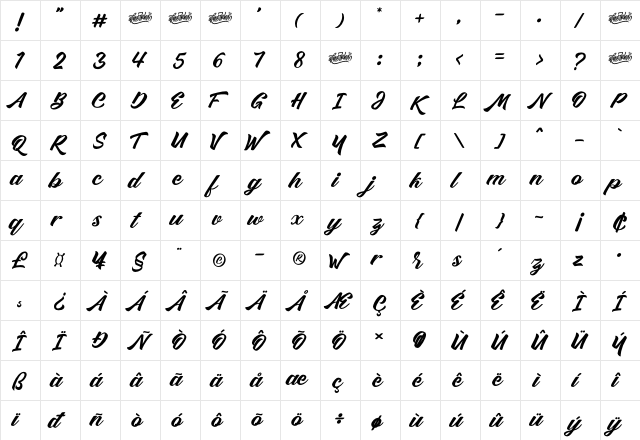
Mentality Regular
Design Context for Mentality Typeface
Mentality is a composed and adaptable typeface that performs quietly and consistently across a wide range of design contexts.
Pro Tip: Pair Mentality with a font of contrasting weight or personality to build a more expressive typographic hierarchy.